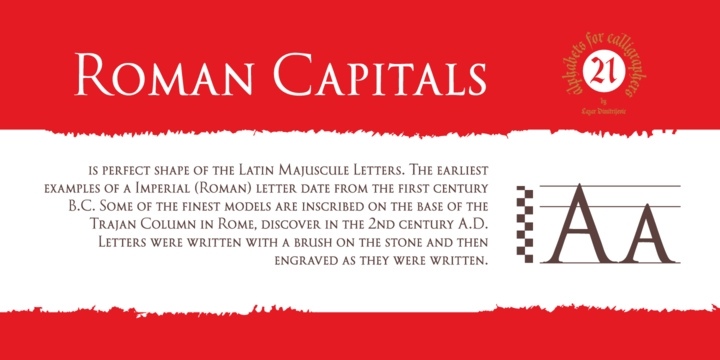
Cal Roman Capitals Font
Cal Roman Capitals Font is perfect for classical architecture presentations, museum exhibition design, historical publications, academic institutions branding, luxury brand identities, monumental signage, legal firm communications, prestigious award ceremonies, and traditional publishing projects.
What makes Cal Roman Capitals Font exciting is its majestic embodiment of classical Roman typography traditions that brings timeless authority and institutional gravitas to contemporary design projects. The font features meticulously crafted capital letterforms based on ancient Roman inscriptional models, with perfect proportions and classical detailing that command immediate respect and convey lasting permanence. Its authentic historical character and monumental presence make it perfect for organizations that want to communicate tradition, authority, and enduring values while maintaining the dignity and prestige associated with classical civilization.
Cal Roman Capitals Font family includes various classical weights such as Regular, Medium, Bold, and Heavy variations, often featuring different inscriptional styles and historical alternates. The family may include specialized Roman numerals, classical ornamental elements, and traditional decorative features that enhance the font's authentic historical aesthetic, providing designers with comprehensive options for creating dignified typographic compositions that honor classical traditions.
This prestigious typeface has gained recognition among cultural institutions and traditional organizations seeking authentic classical typography solutions. Cal Roman Capitals Font Free Download provides an excellent opportunity to experience this historically significant font before investment. The font's character set includes classical symbols and traditional glyphs that work perfectly for institutional and heritage applications requiring historical authenticity. Whether you're designing for universities, museums, or established luxury brands, Cal Roman Capitals Font delivers the classical authority your project requires. Its versatile nature makes it suitable for various traditional applications including government buildings, law firms, financial institutions, and cultural heritage projects, ensuring your typography choices communicate enduring values and institutional credibility while creating impressive brand experiences that connect with audiences who appreciate the timeless wisdom and lasting beauty of classical civilization through its authentically dignified and historically resonant visual character.